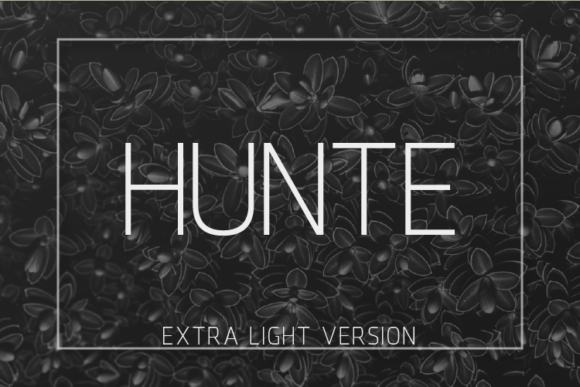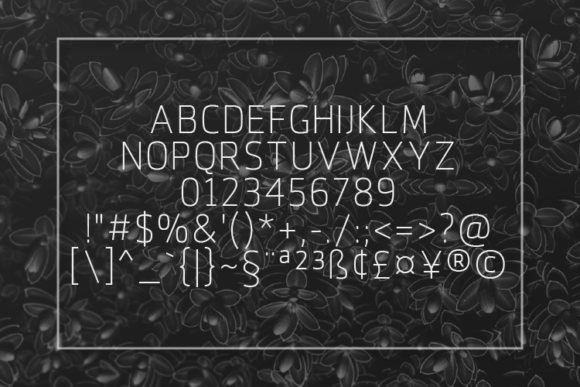
HomeSans Serif FontsHunte Extra Light Font Sans Serif Fonts Hunte Extra Light Font FacebookXPinterestWhatsApp Hunte Extra Light Font 1 of 2 About Hunte Extra Light Font The absence of terminals gives Hunte a clean and geometric look, while keeping its essence and structure! Itβs an ideal font for publishing, titles, books, magazines and corporate design. DOWNLOAD ON CREATIVE FABRICAThis font is sold and delivered by Creative Fabrica. Font Canyon may earn a commission if you buy through this link. People also explored Wild Monkey Font Hakan Font Bonsay Brush Font Strange Planet Monogram Flower Rosasine Font Christmas Festival Font Marthena Swans Font Anastesha Morales Font La Patio Font 305 0 TagsHunte Extra Light Font Previous articleHunte Thin FontNext articleHunte Light Font LEAVE A REPLY Cancel reply Comment: Please enter your comment! Name:* Please enter your name here Email:* You have entered an incorrect email address! Please enter your email address here Website: Save my name, email, and website in this browser for the next time I comment. Personal Use Free Omellia Personal Use Free Read more about this font Unicorn Kids Personal Use Free Read more about this font Hubbies Personal Use Free Read more about this font Einstaint Personal Use Free Read more about this font BLOG Free vs Paid Fonts: Why Investing in Premium Fonts Is Worth It Free vs Paid Fonts: Why Premium Fonts Are Worth It in 2025 The debate of free vs paid fonts continues in the design world. While... How to Cut Any Font on Cricut: Convert a Font to SVG (Free) Elegant Wedding Invitation Fonts β Handwritten & Script Fonts Where to Buy American Fonts Online in 2024